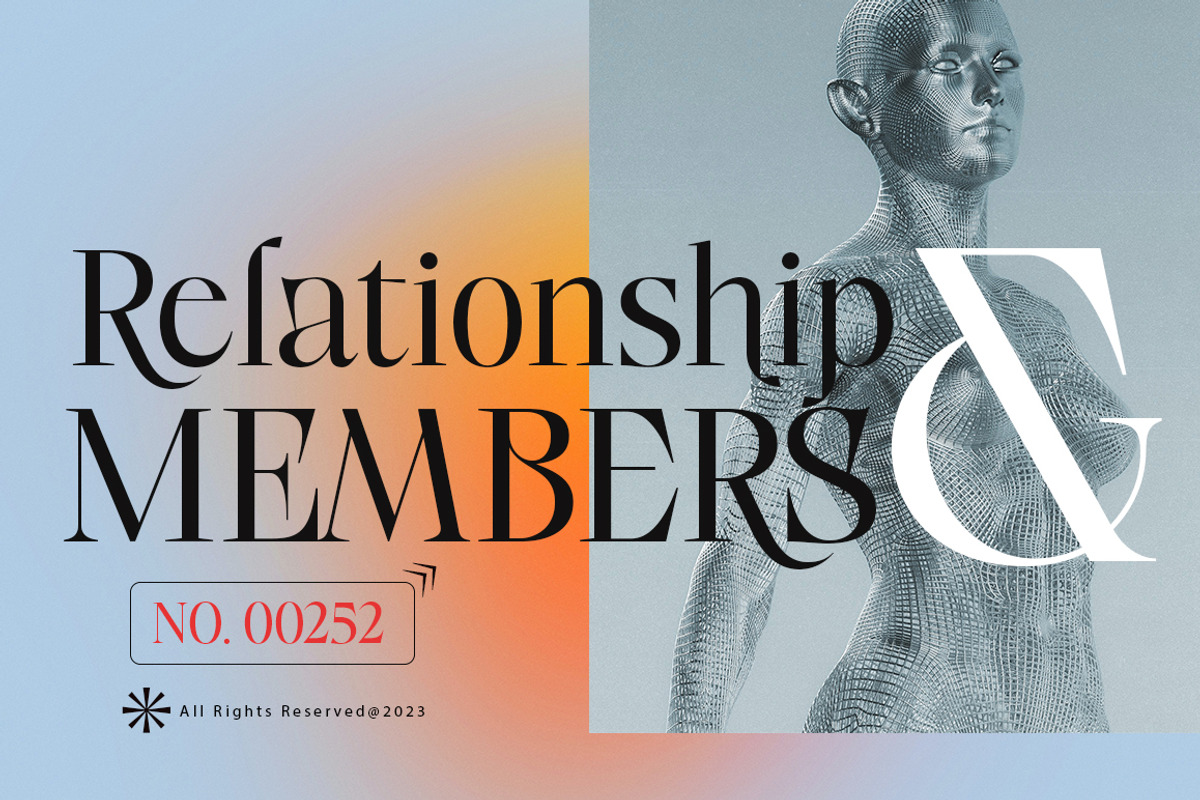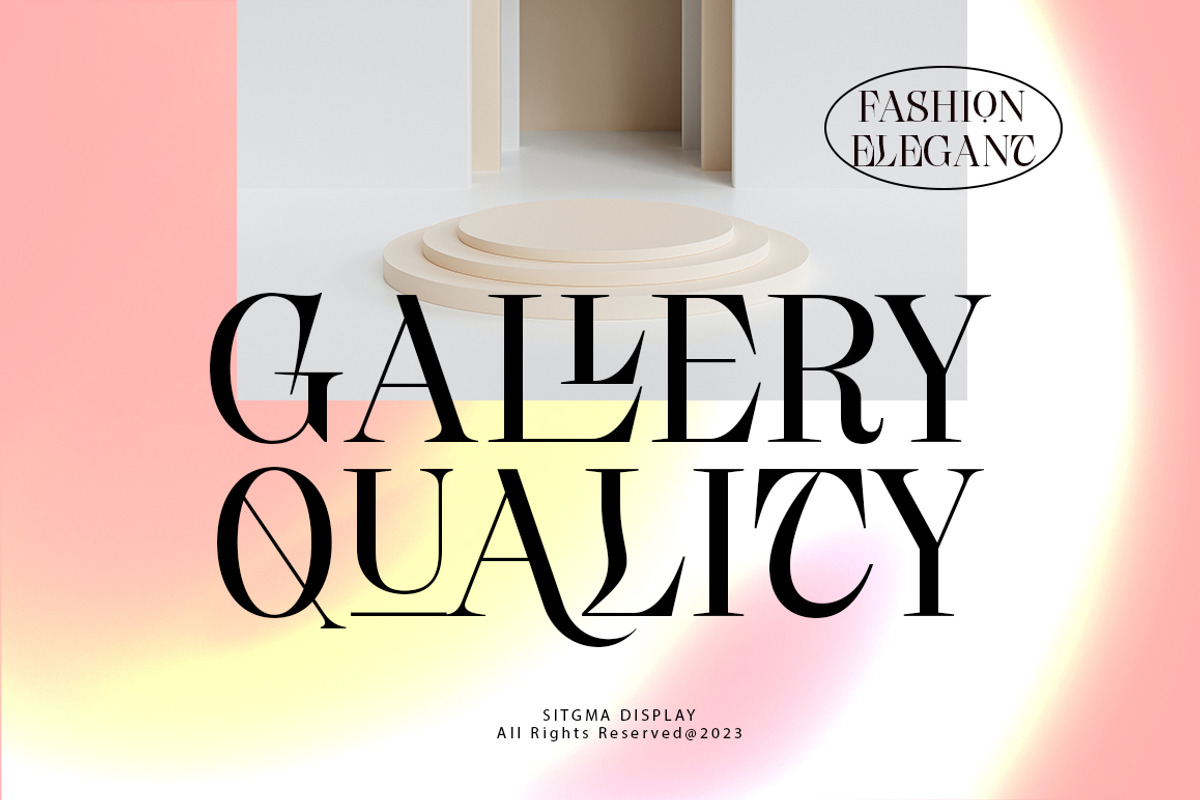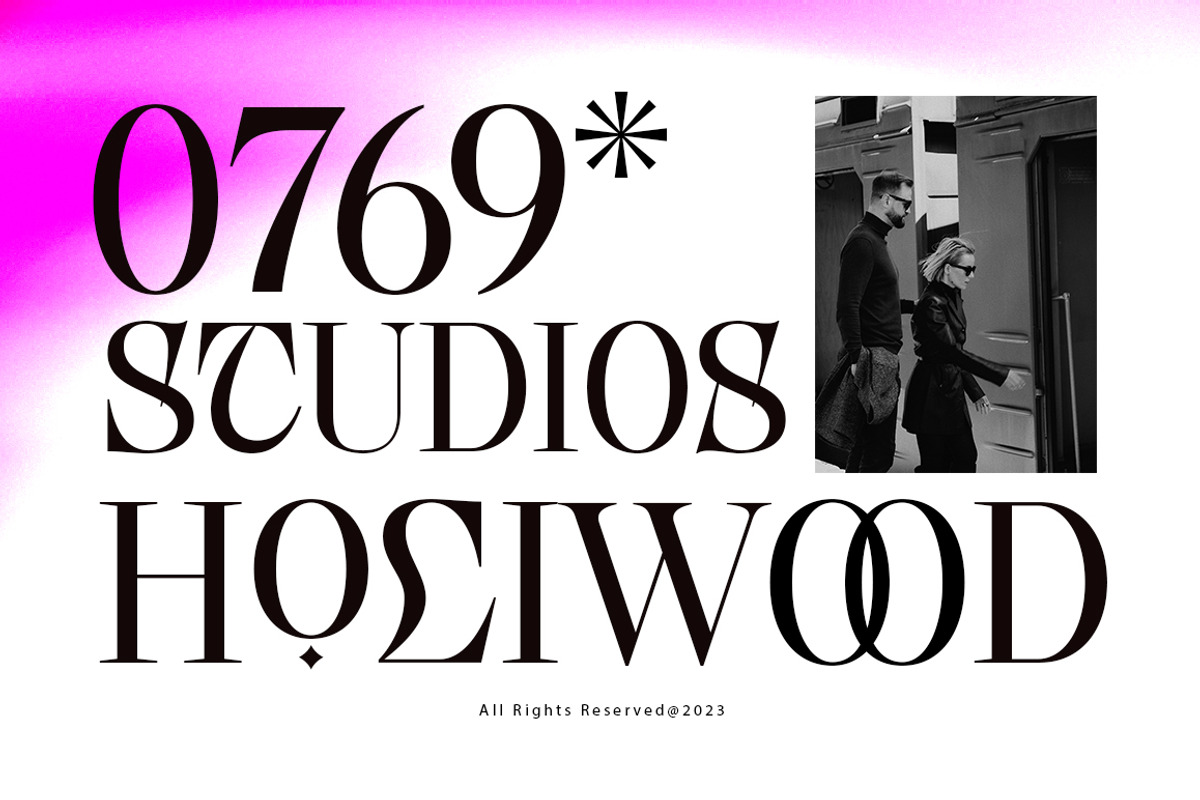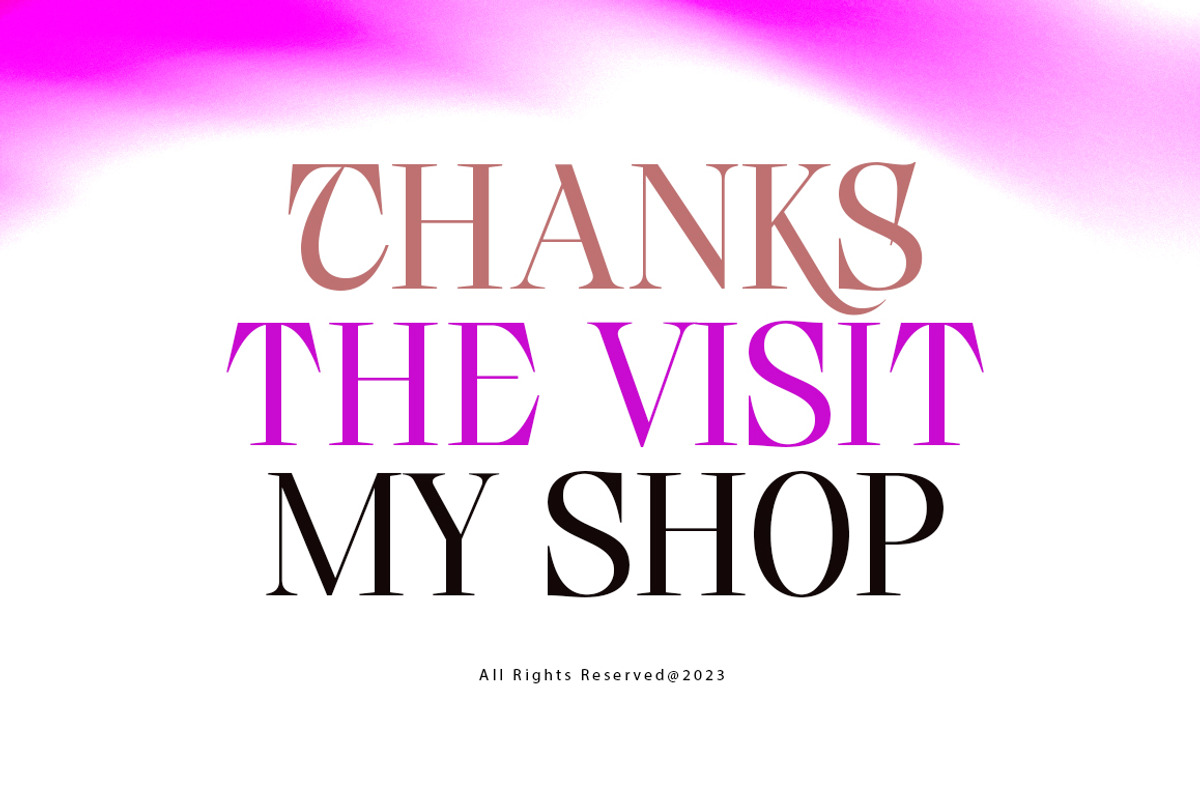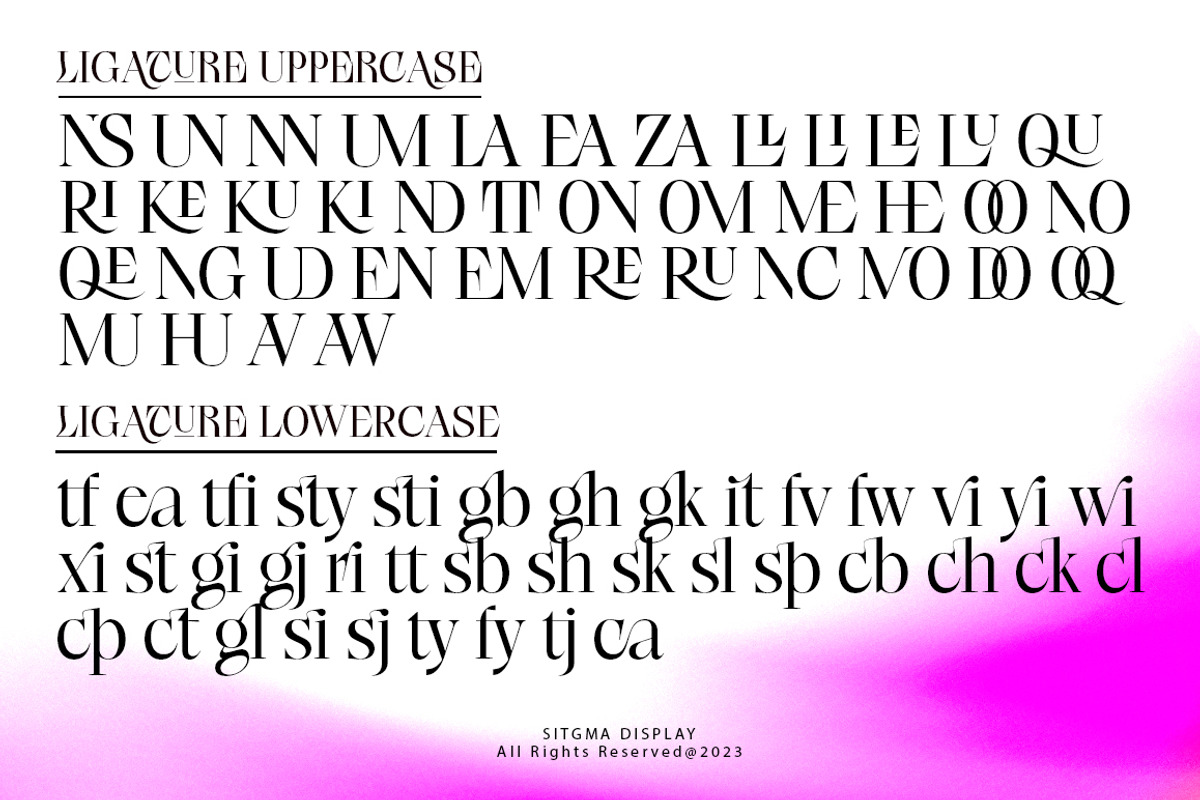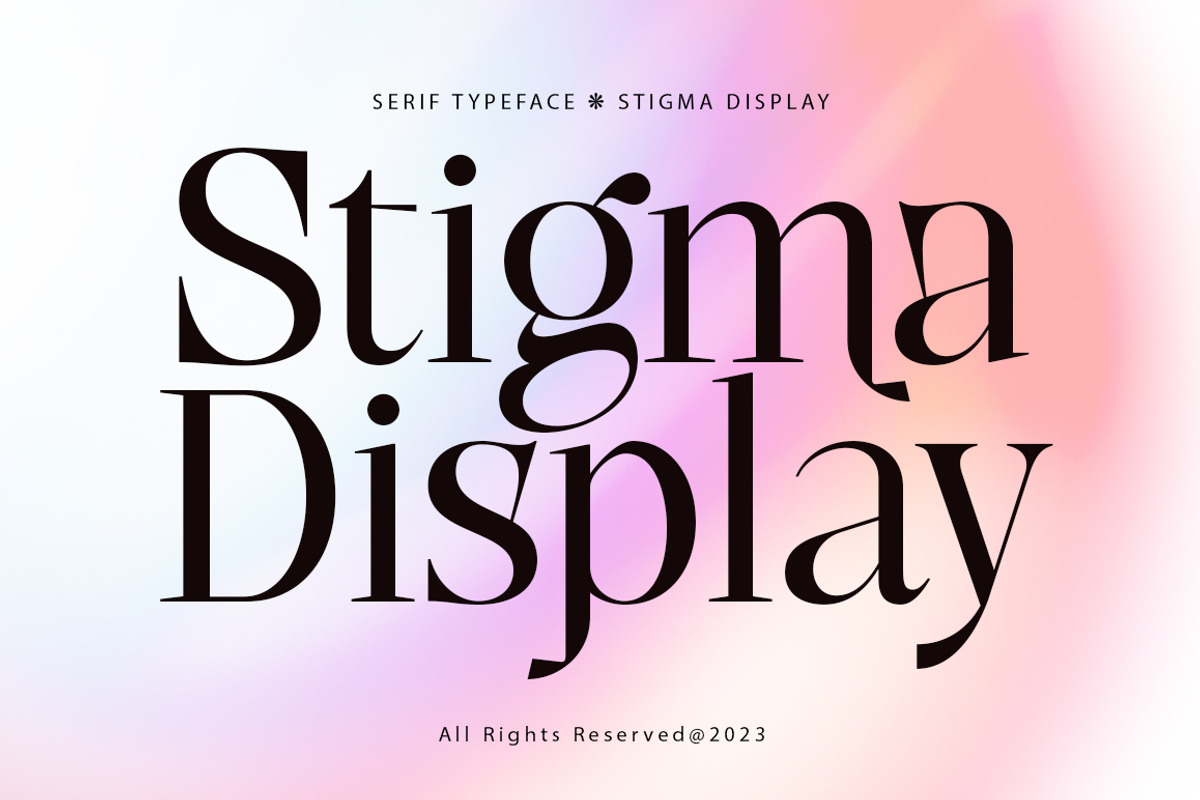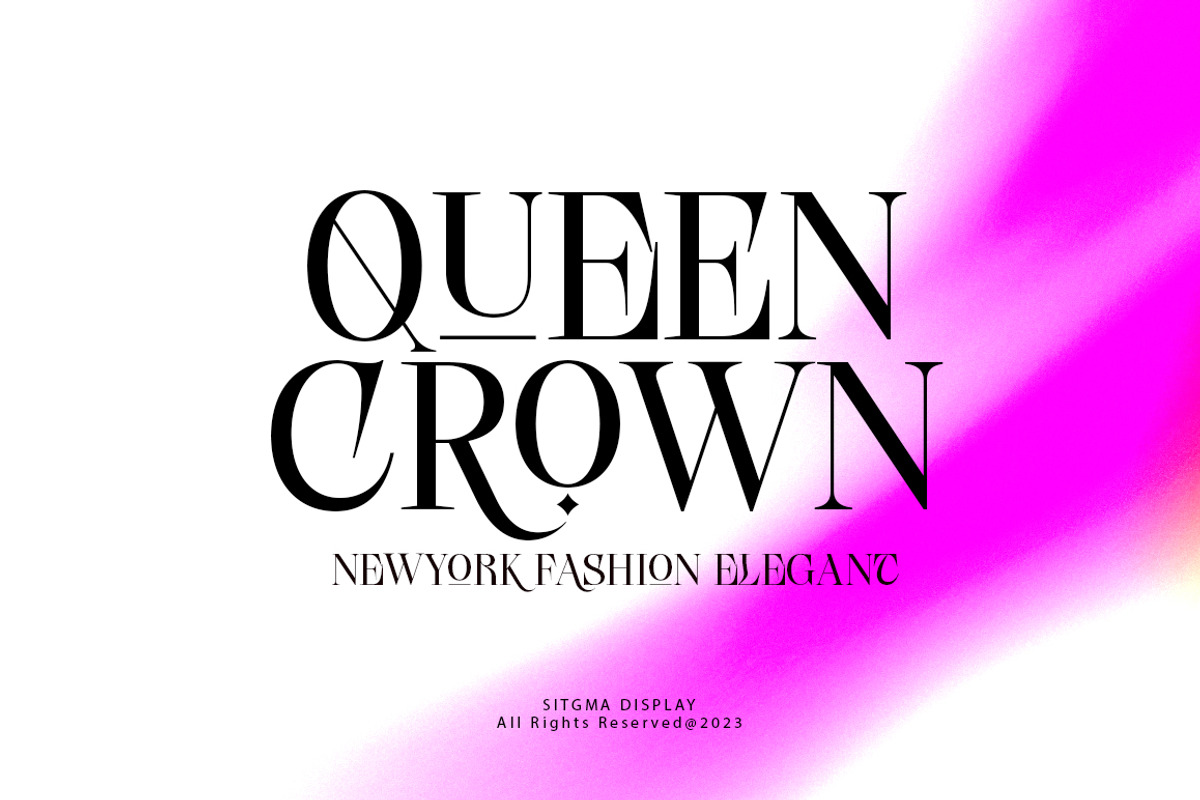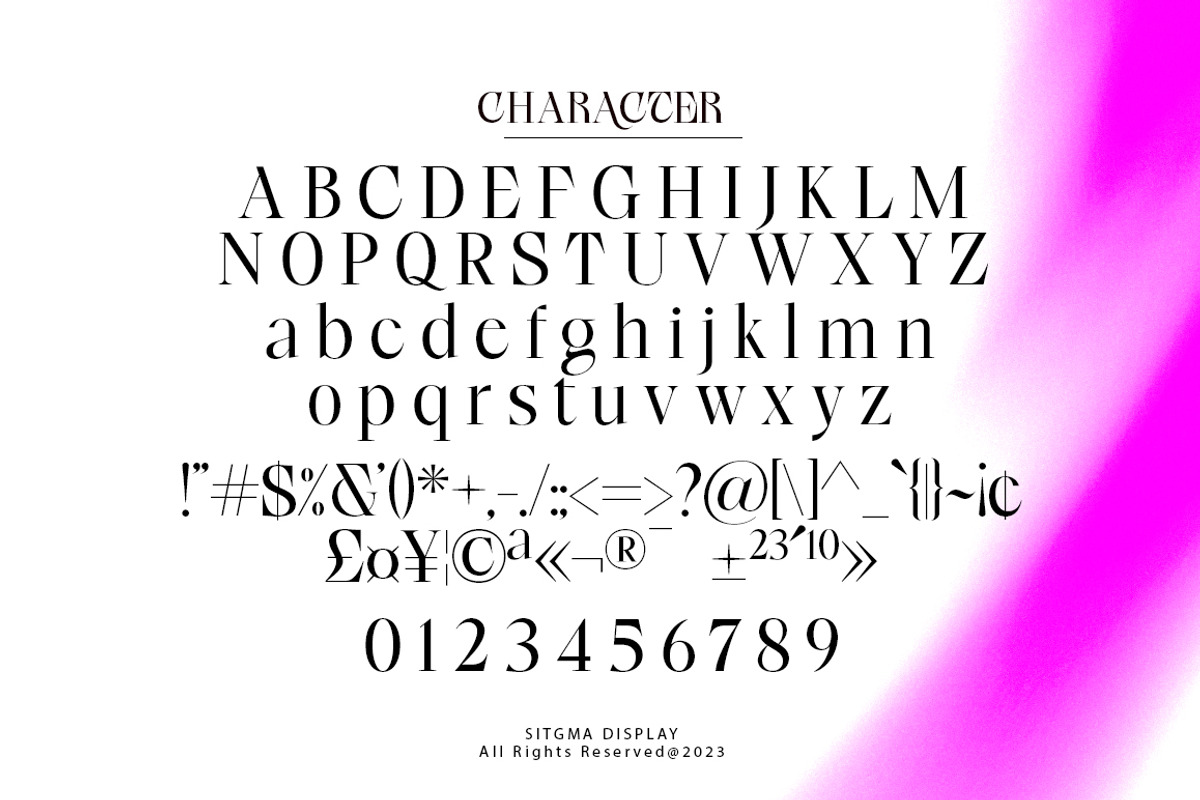
Stigma Display
Stigma Display is an elegant and very dynamic modern font for editorial headlines. The serif font style is complete with many opentype features, making it easy to use in many projects. This font is complete with symbols and multilingual. This font style is bold, bold, and slim, making it suitable for editorials, web, posters, t-shirts, and magazine covers. . etc.
Capitals, Numbers, Punctuation & Symbols.
Alternates, Swashes, Discretionary Ligatures etc
Stigma Display exudes character but remains useful thanks to its restrained modern style and contemporary construction.